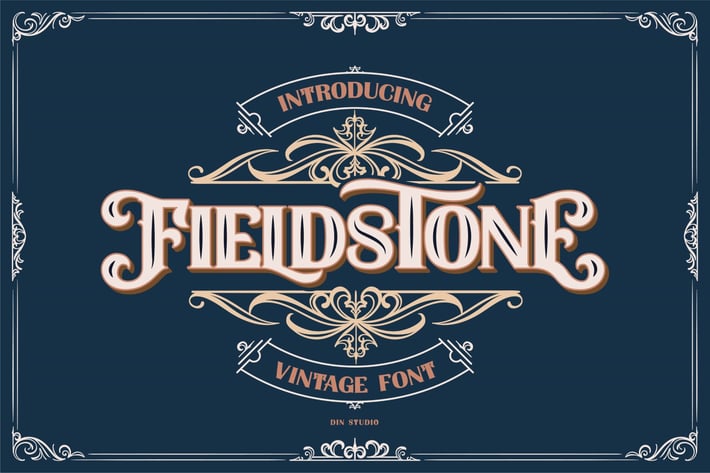
FIELDSTONE - LAYERED FONTS
Din-Studio
Fieldstone is amazing display font. The font is suitable for any project like branding , lettering , tshirt print and may others.